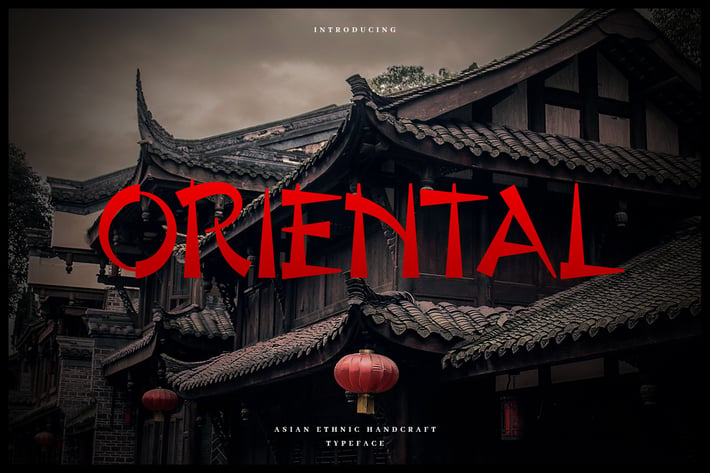
Oriental - Authentic Chinese Typeface
Introducing Oriental font. Are you looking for a bold and solid display font that has authentic chinese traditional feeling? We can help! Try to download our oriental font. The font is suitable to use for many occasion such as event, traveling, poetry, movie title, book title, brand identity, and many more. We provide you with normal and bold version :)